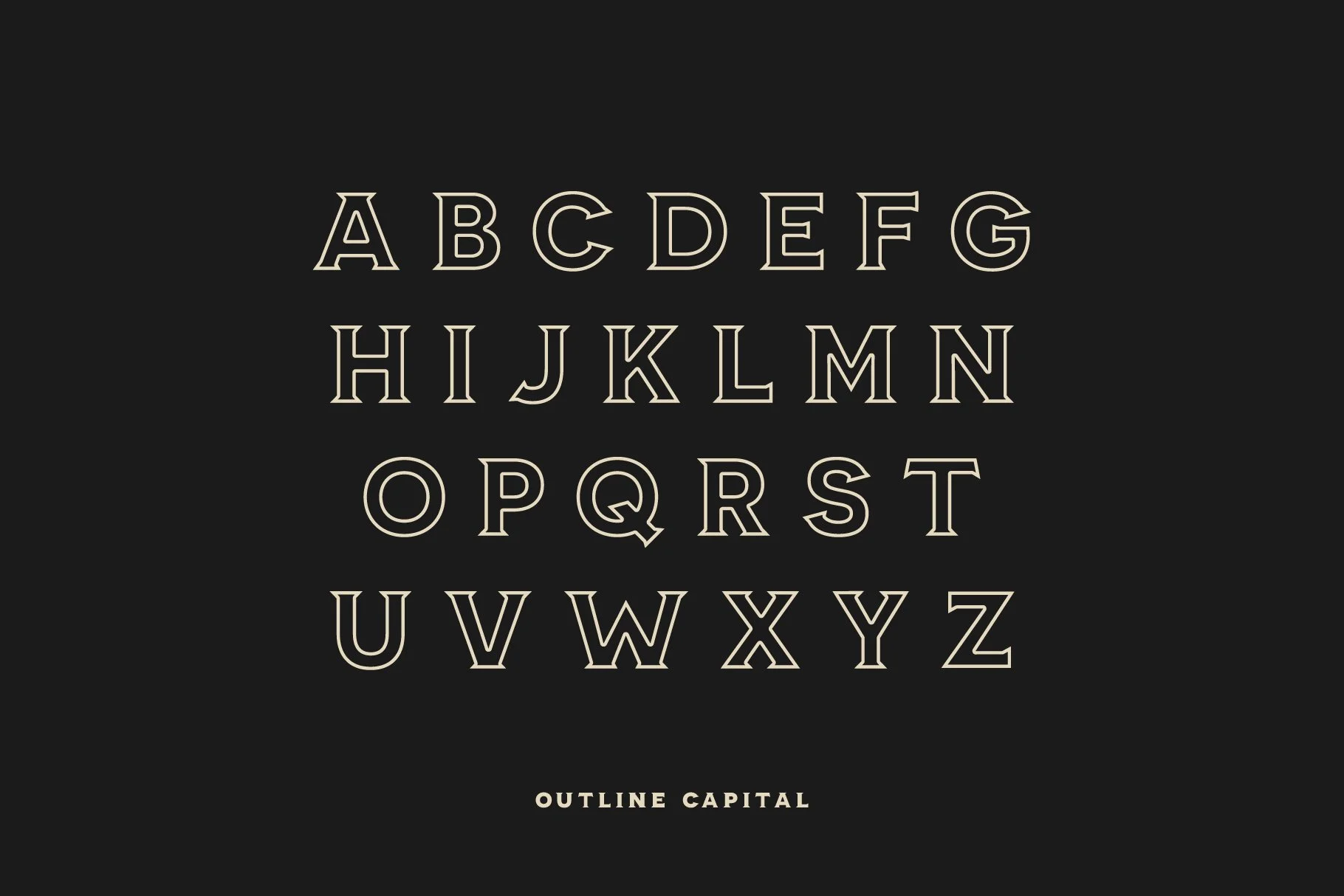
Fonts › American Mortar Image 1 of 12 Image 2 of 12 Image 3 of 12 Image 4 of 12 Image 5 of 12 Image 6 of 12 Image 7 of 12 Image 8 of 12 Image 9 of 12 Image 10 of 12 Image 11 of 12 Image 12 of 12 American Mortar $15.00 Add To Cart Added! VINTAGE FONT FAMILYA masculine vintage display font with a modern flair. VINTAGE FONT FAMILYA masculine vintage display font with a modern flair. Test It Out American made in the heart of texas. Font Size: 40px Letter Spacing: 0px American made in the heart of texas. Font Size: 40px Letter Spacing: 0px Reviews Reviewer Name Review Date Star Rating Description Posted on Etsy Product Show More You Might Also Like American Spirit $15.00 Mason Dixon $15.00